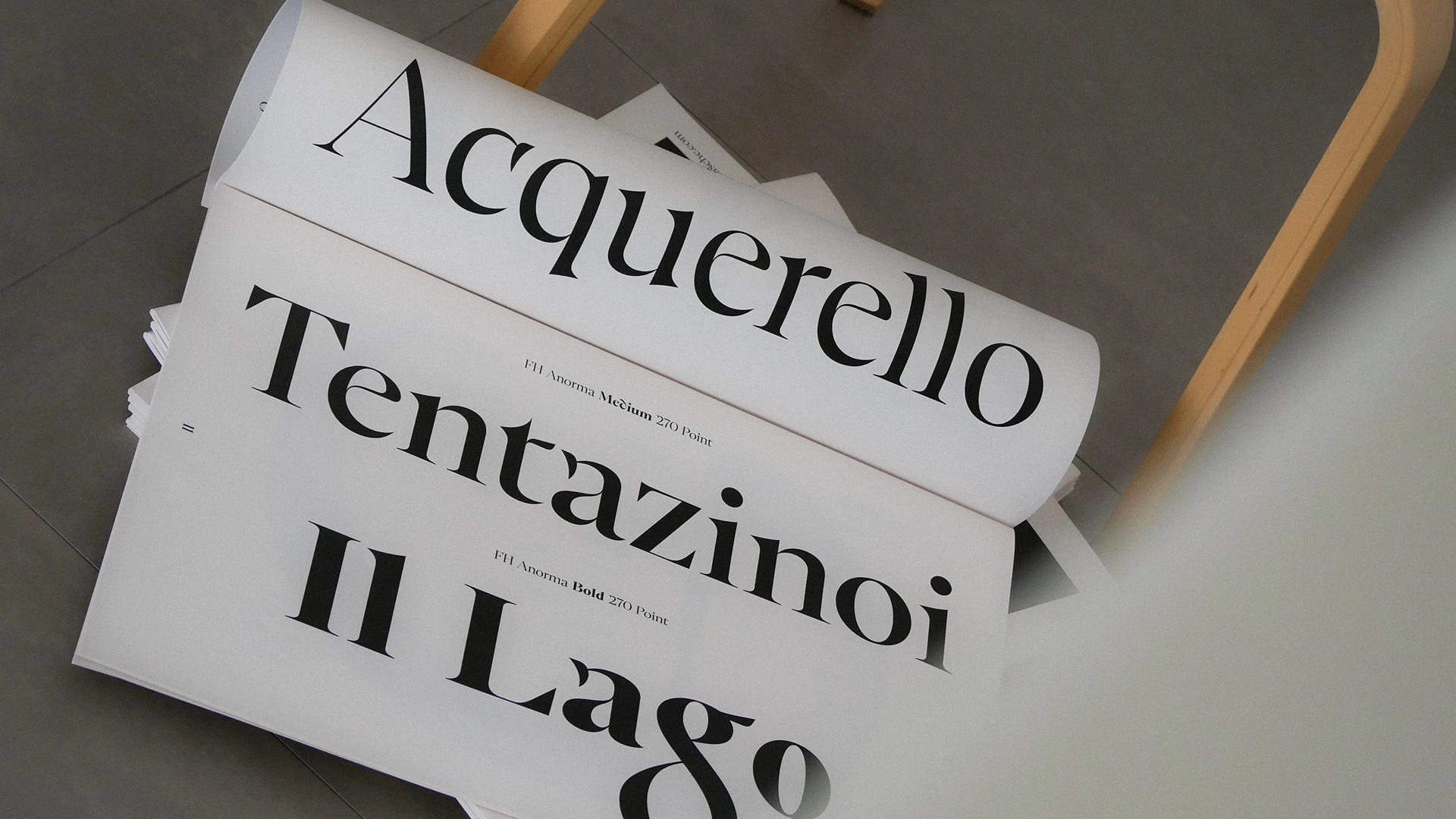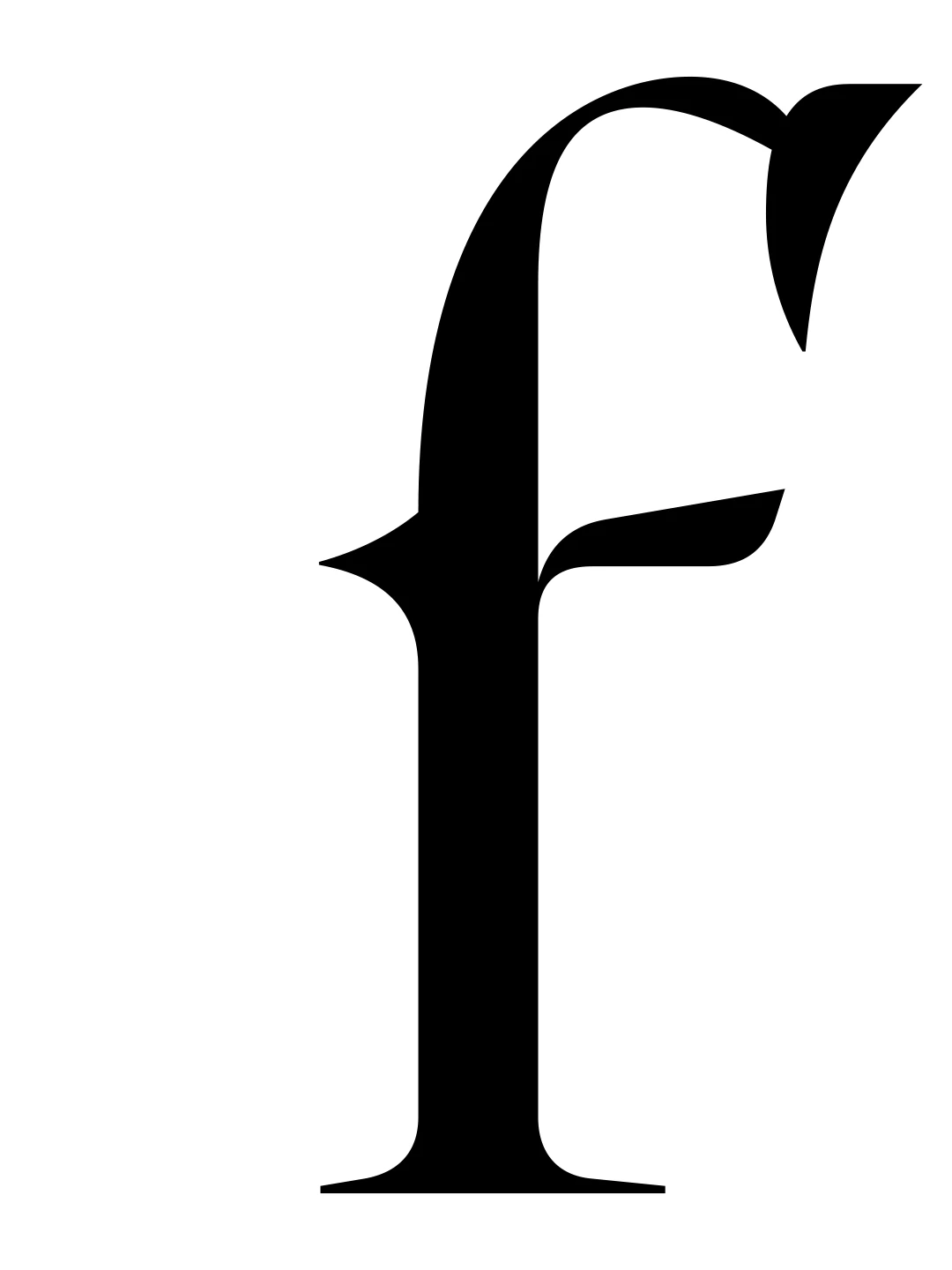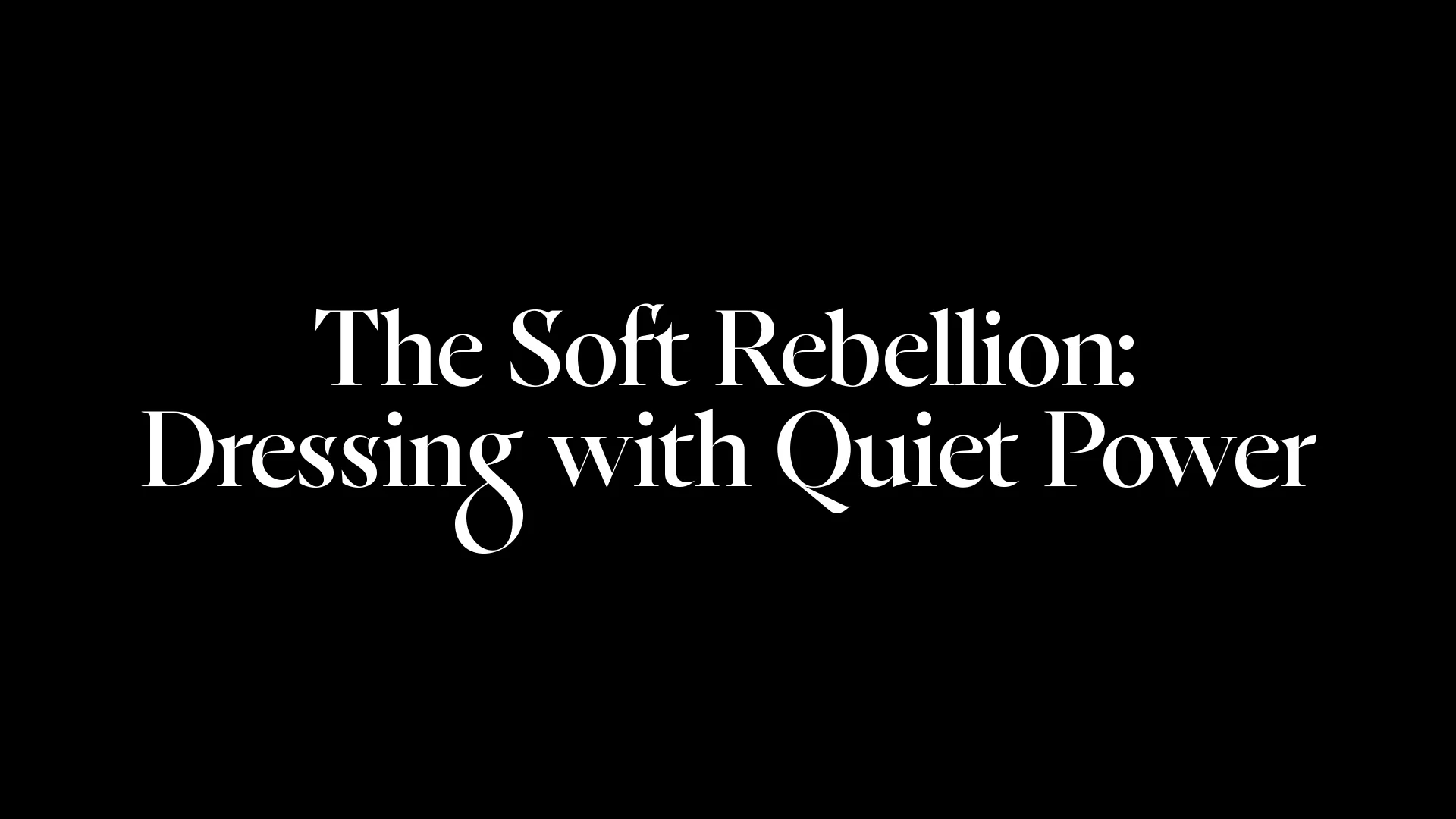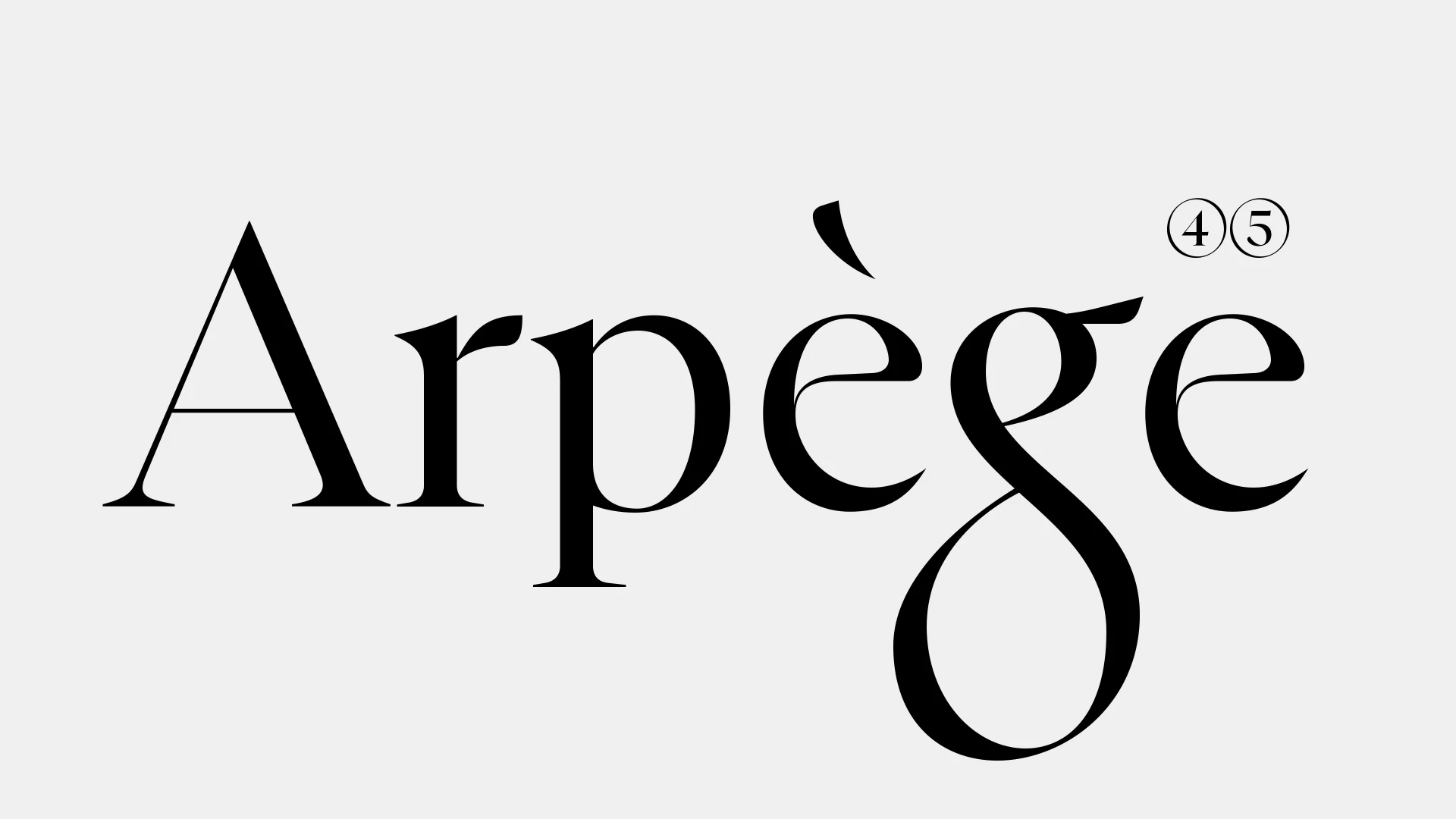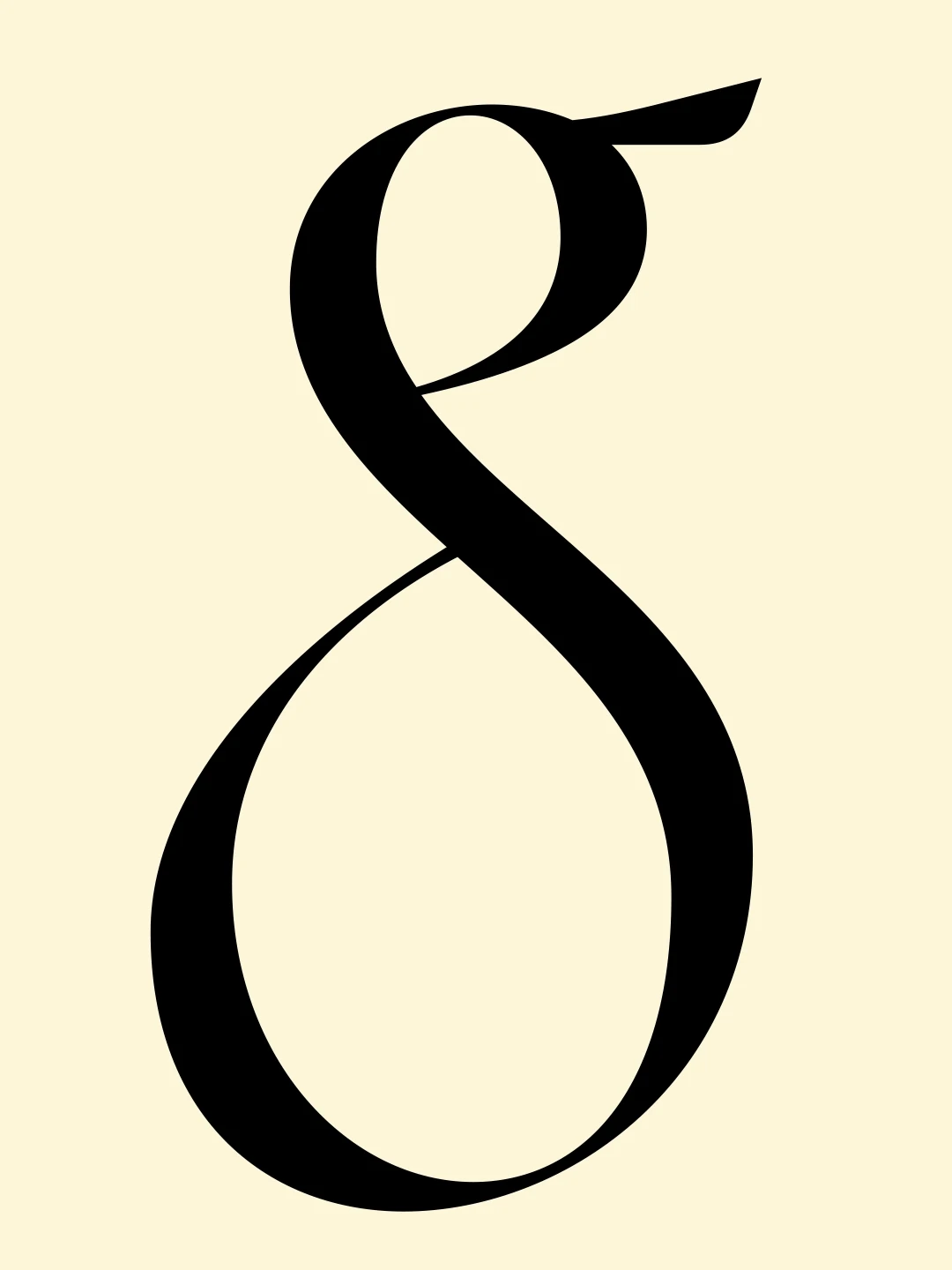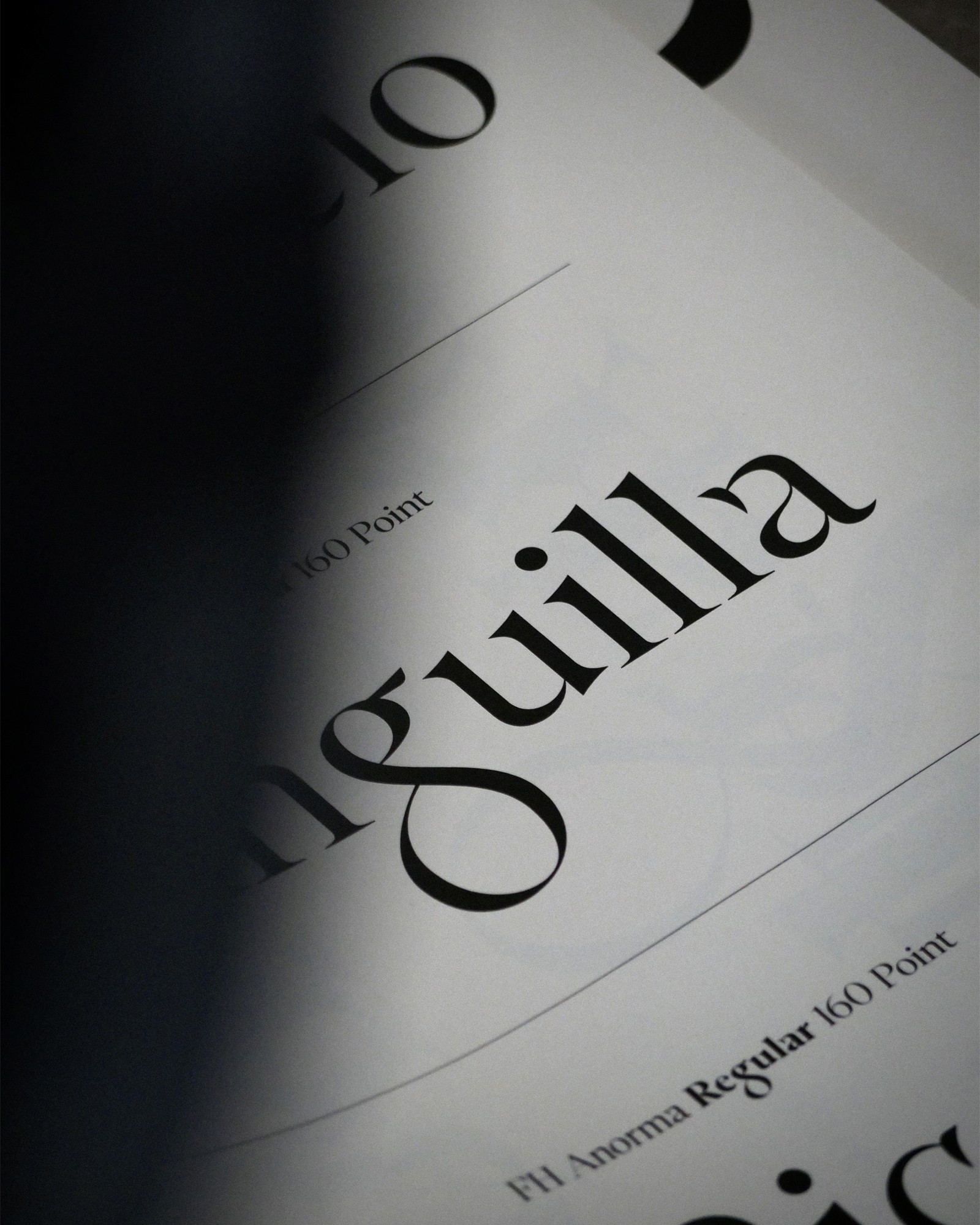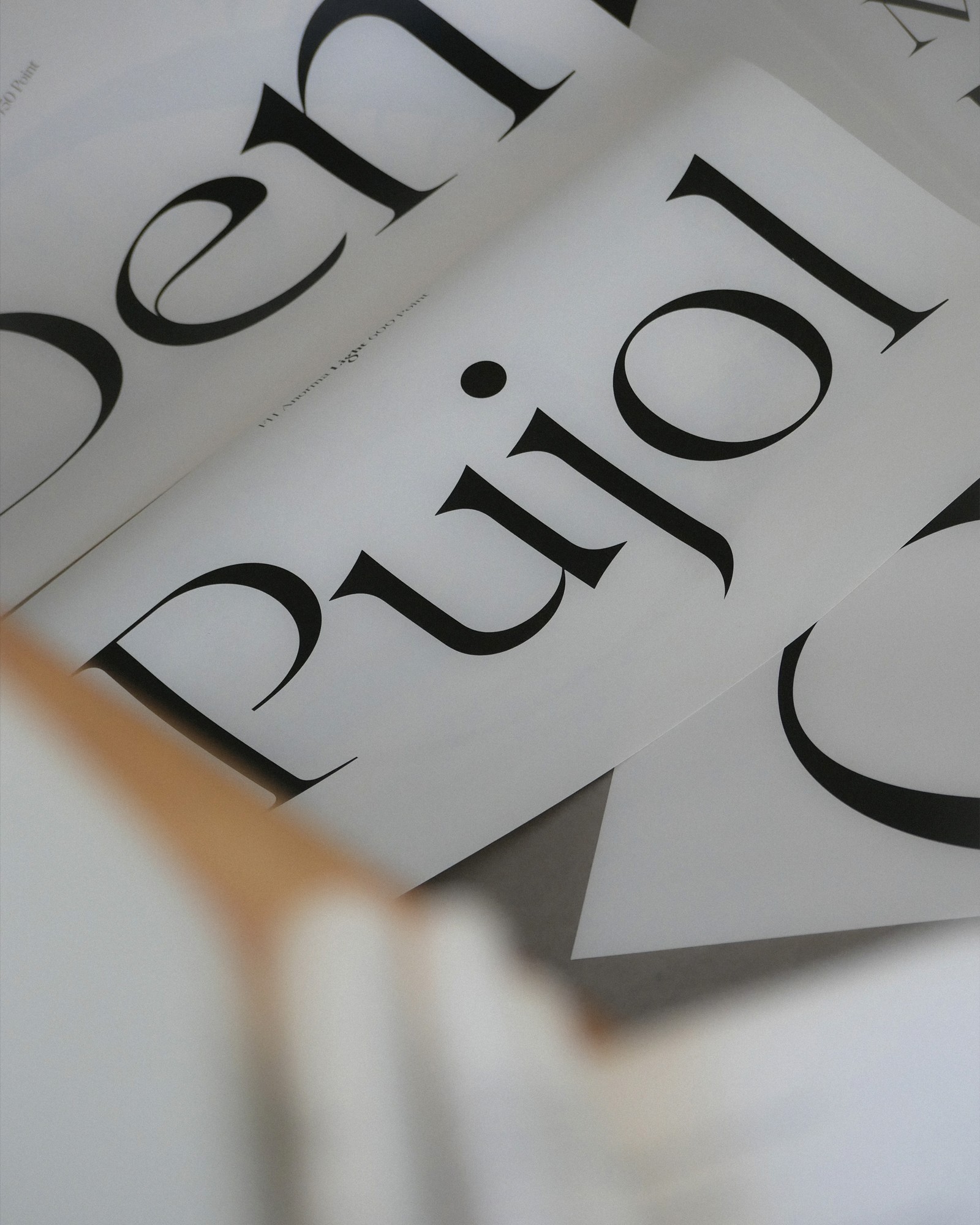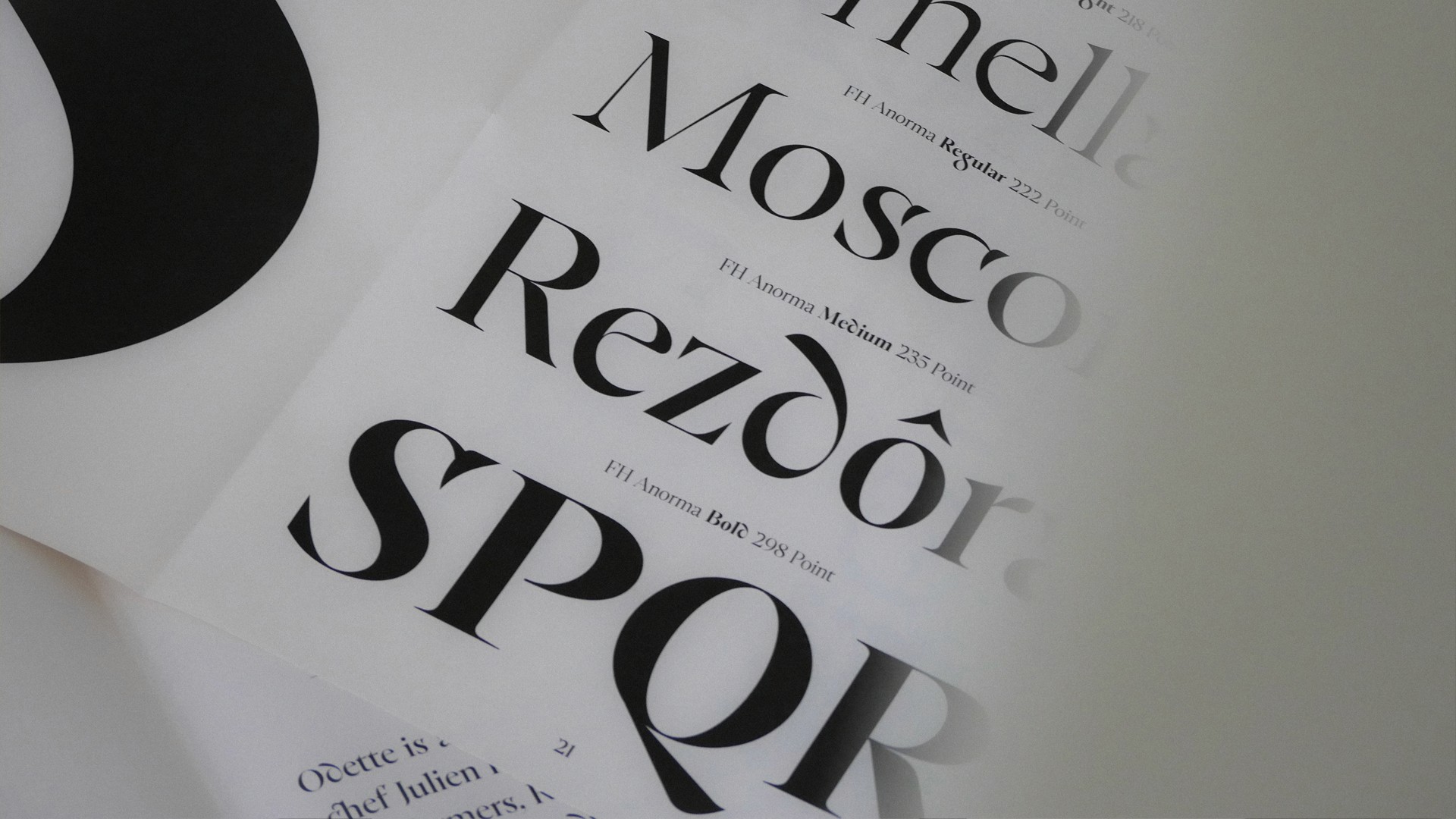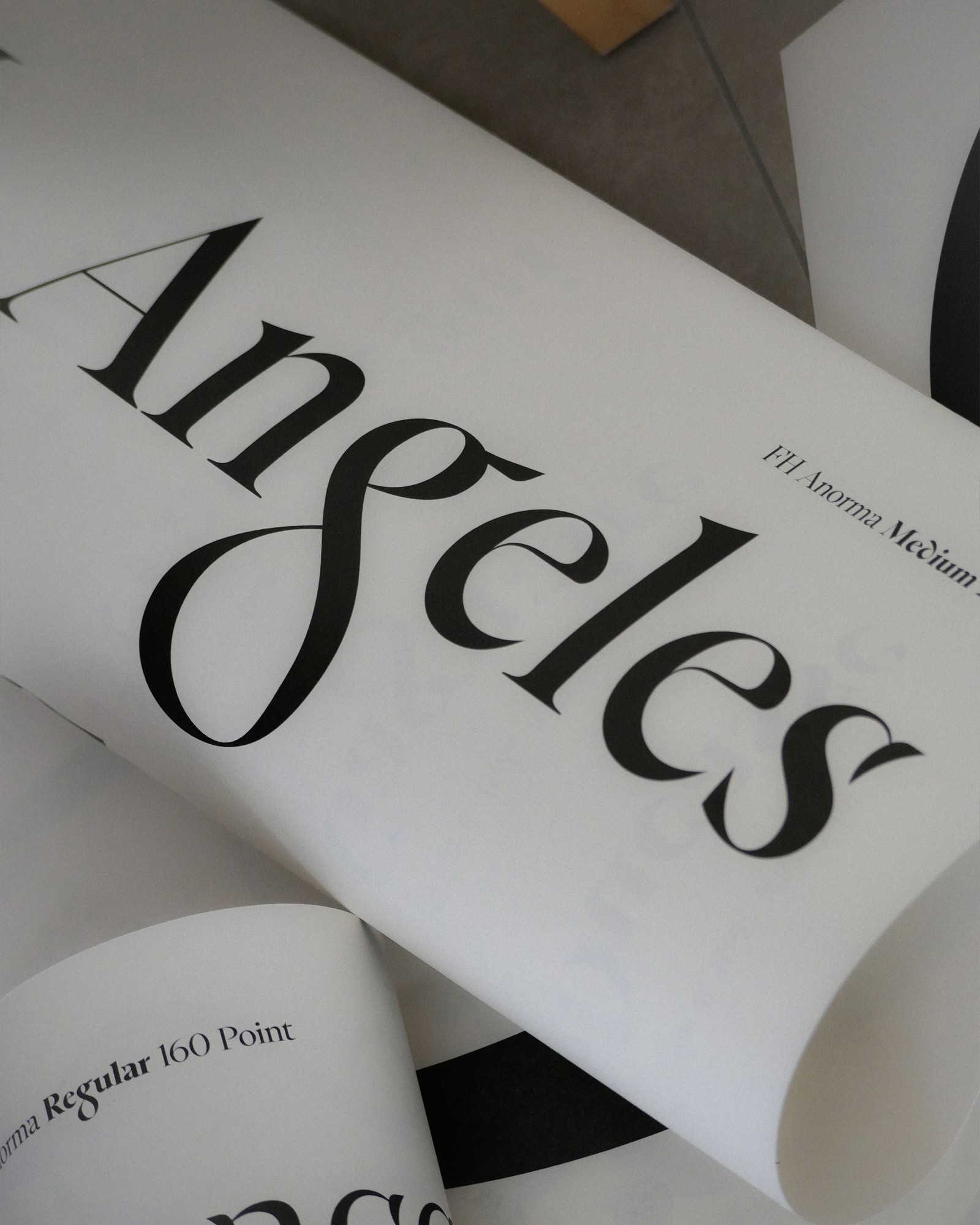
FH Anorma is a contemporary serif rooted in Renaissance calligraphy and 20th century editorial typography. Initially developed from brush-drawn sketches, its sharp terminals and angled stress recall Griffo’s Roman, while its verticality and restraint echo the structural clarity of Bodoni. Referencing the Italian phrase “a norma,” meaning “by the rule,” FH Anorma was designed with discipline in mind. Its four optical weights balance expressive form and formal control, suited for publishing, branding, and identity systems where clarity and precision are paramount.
Classification: Serif / Display Serif